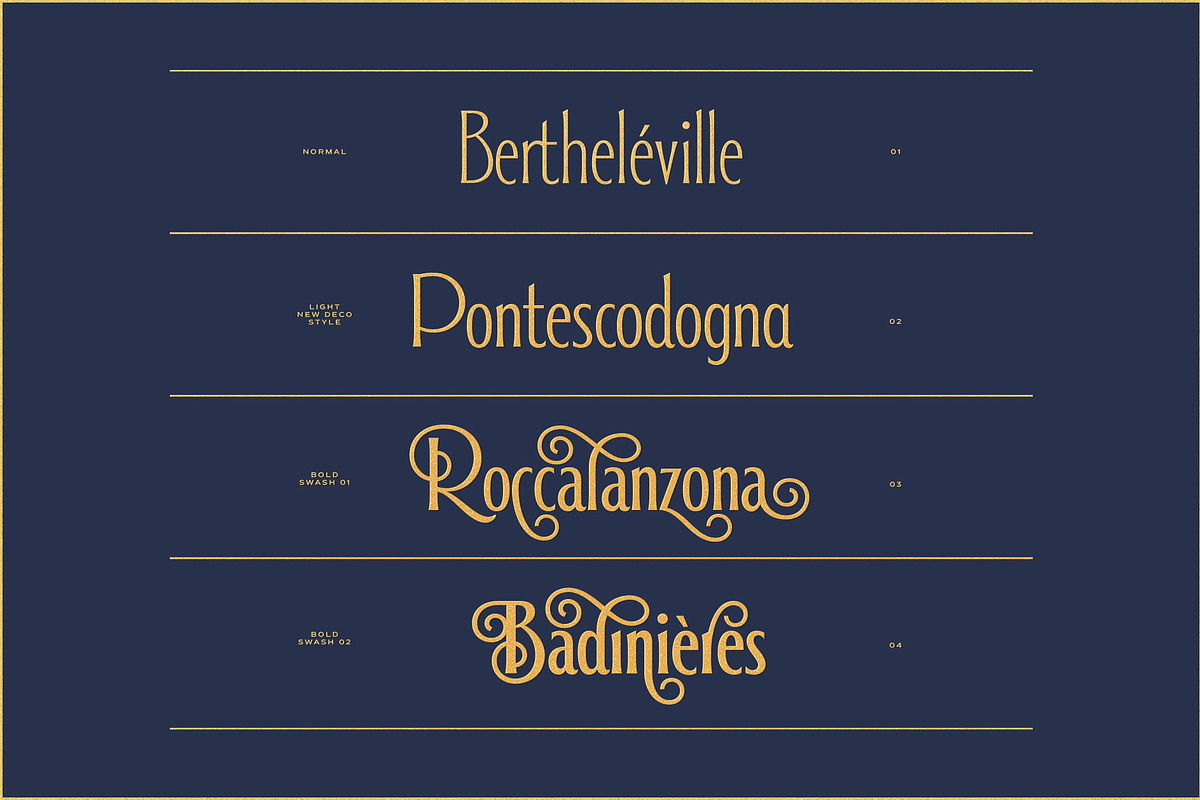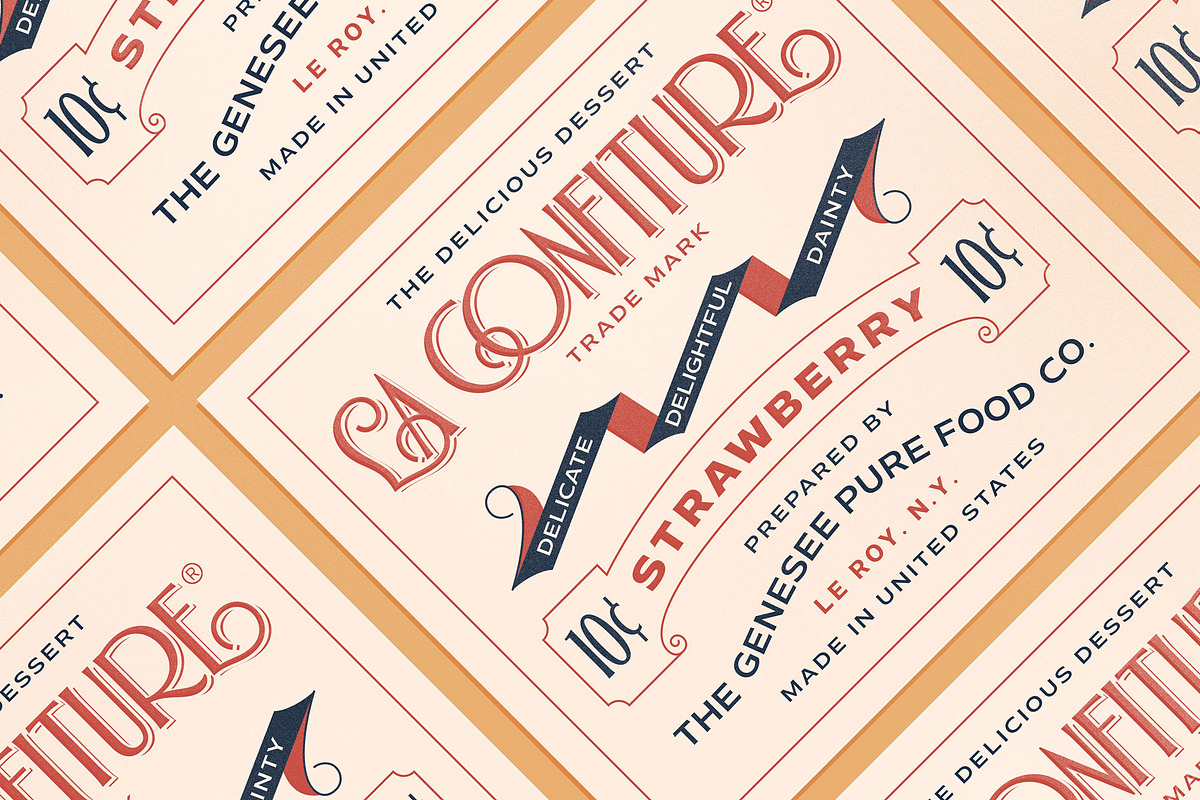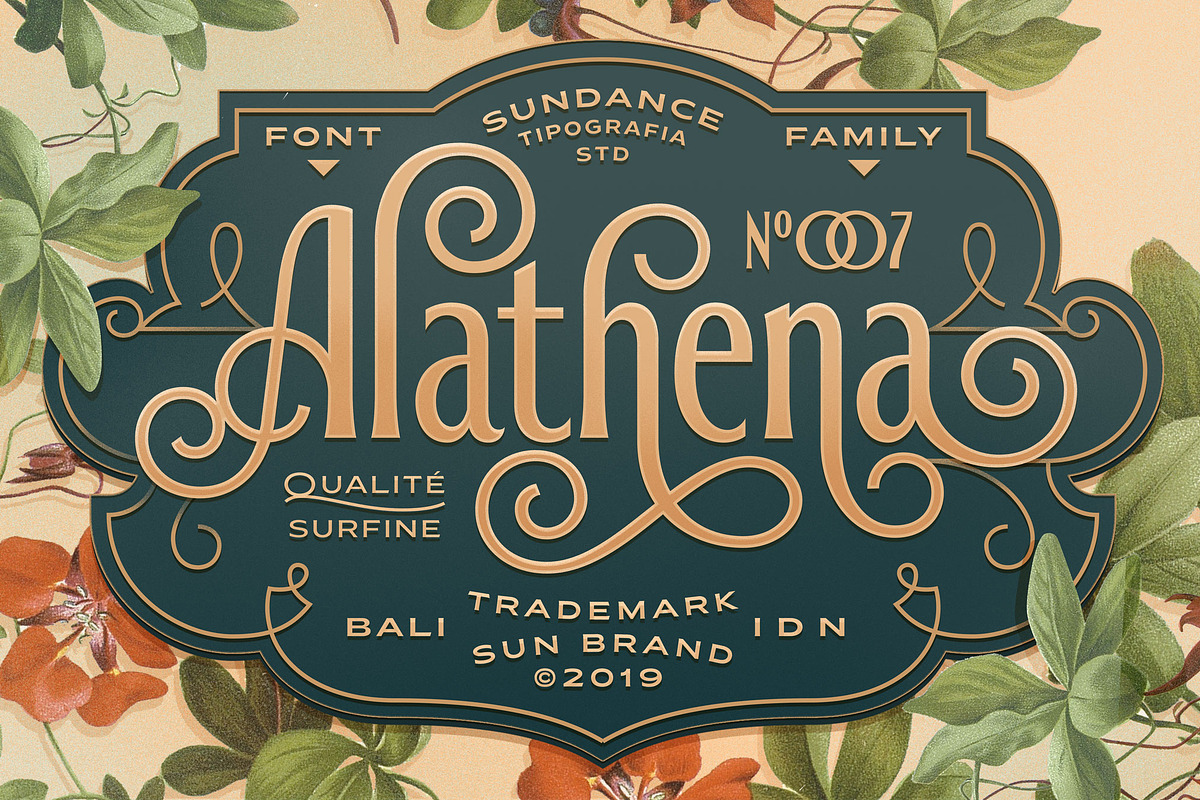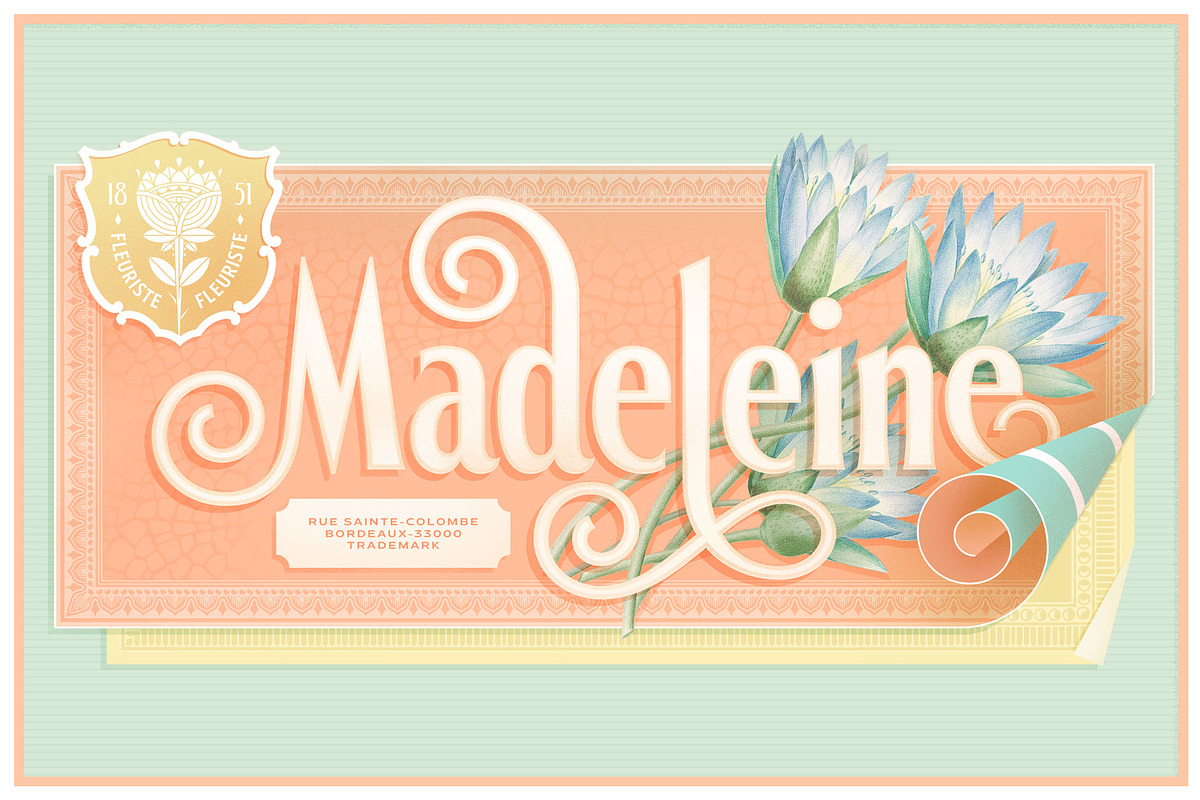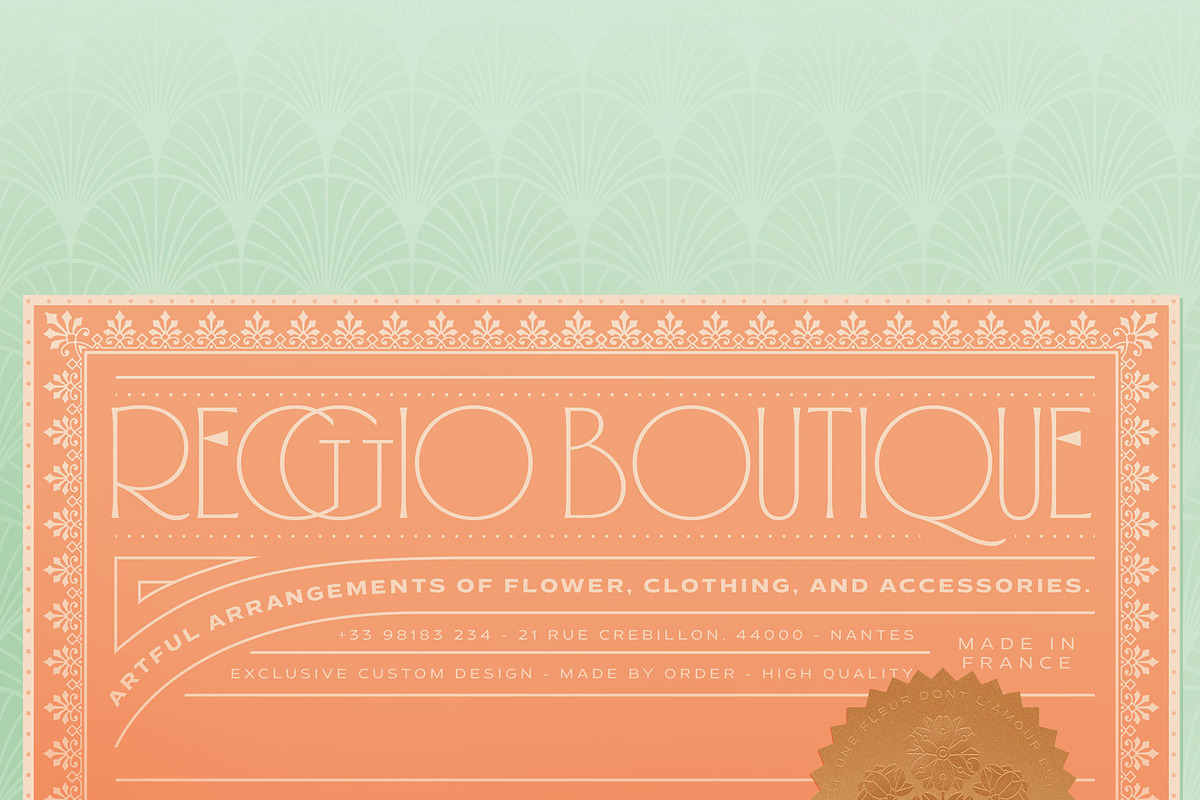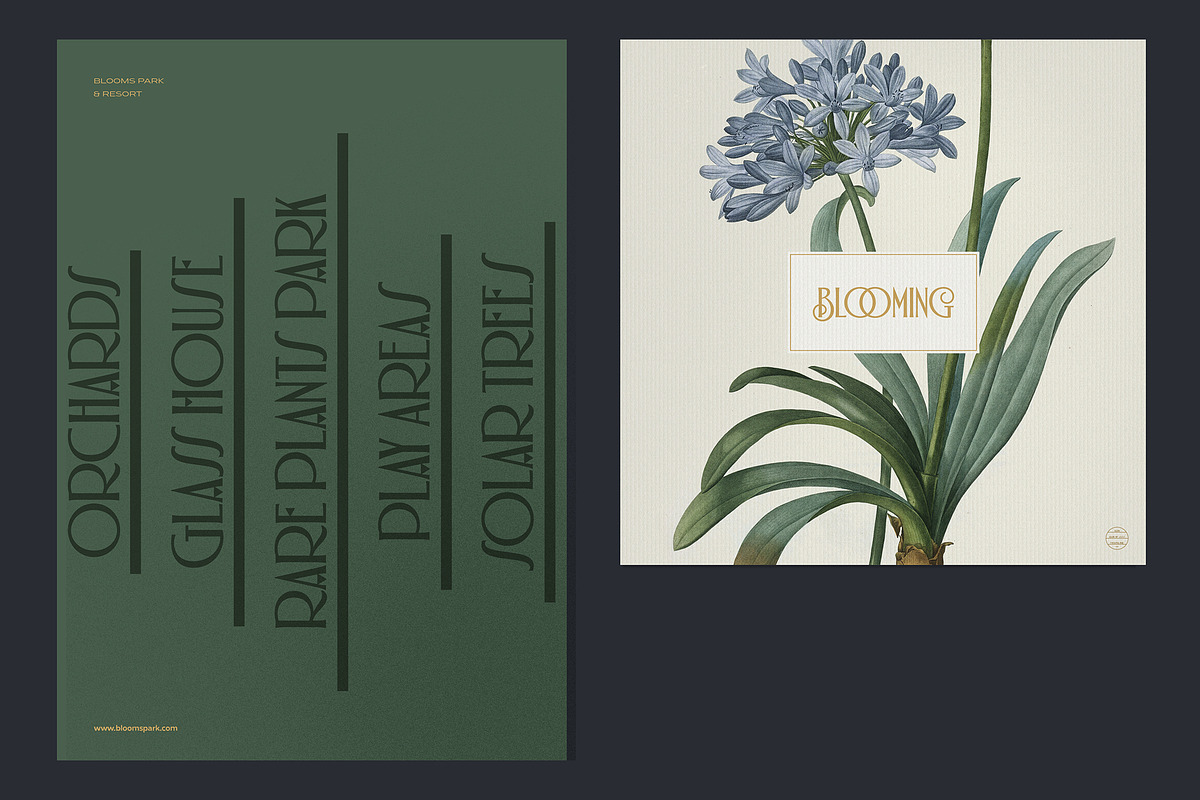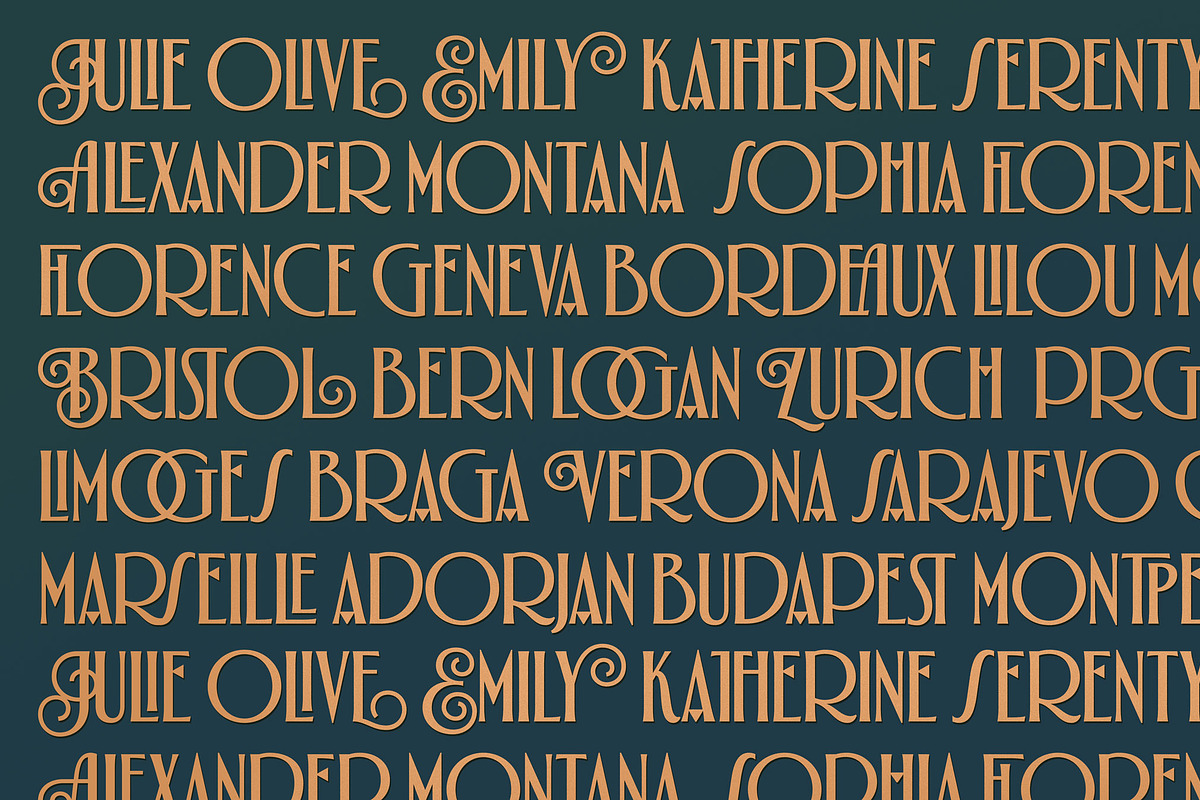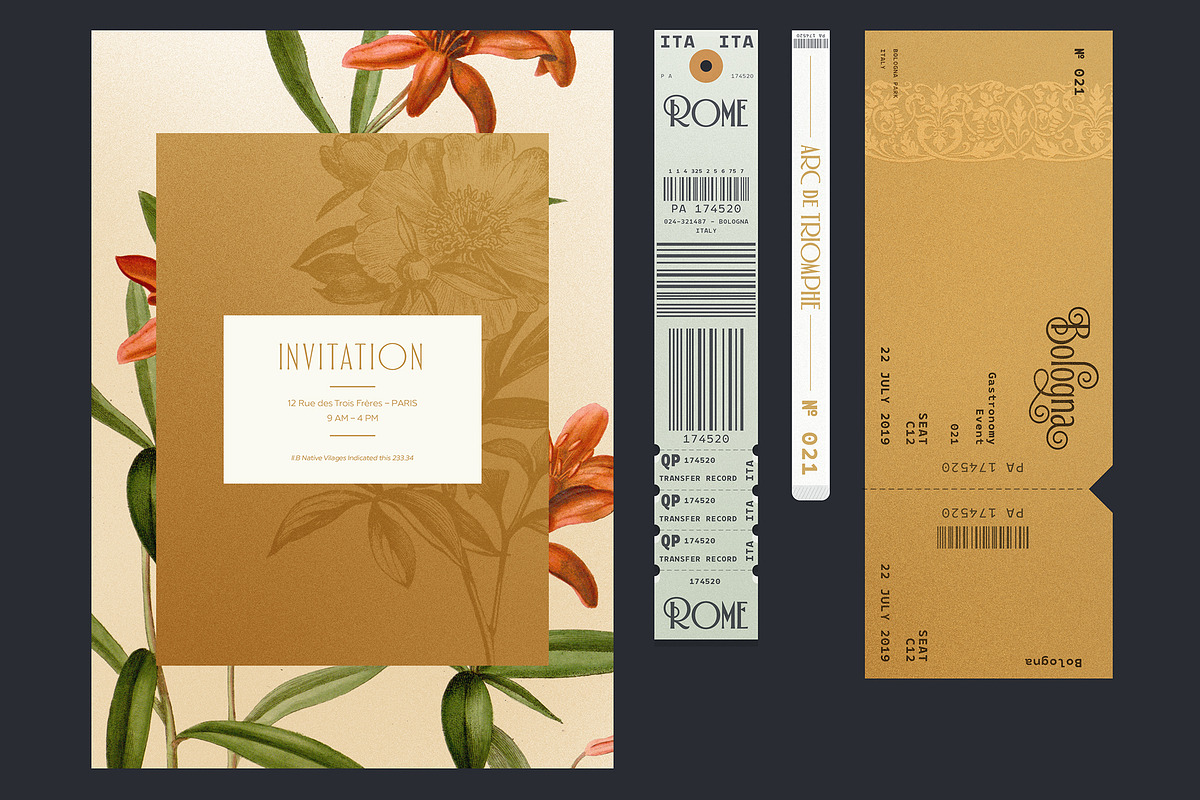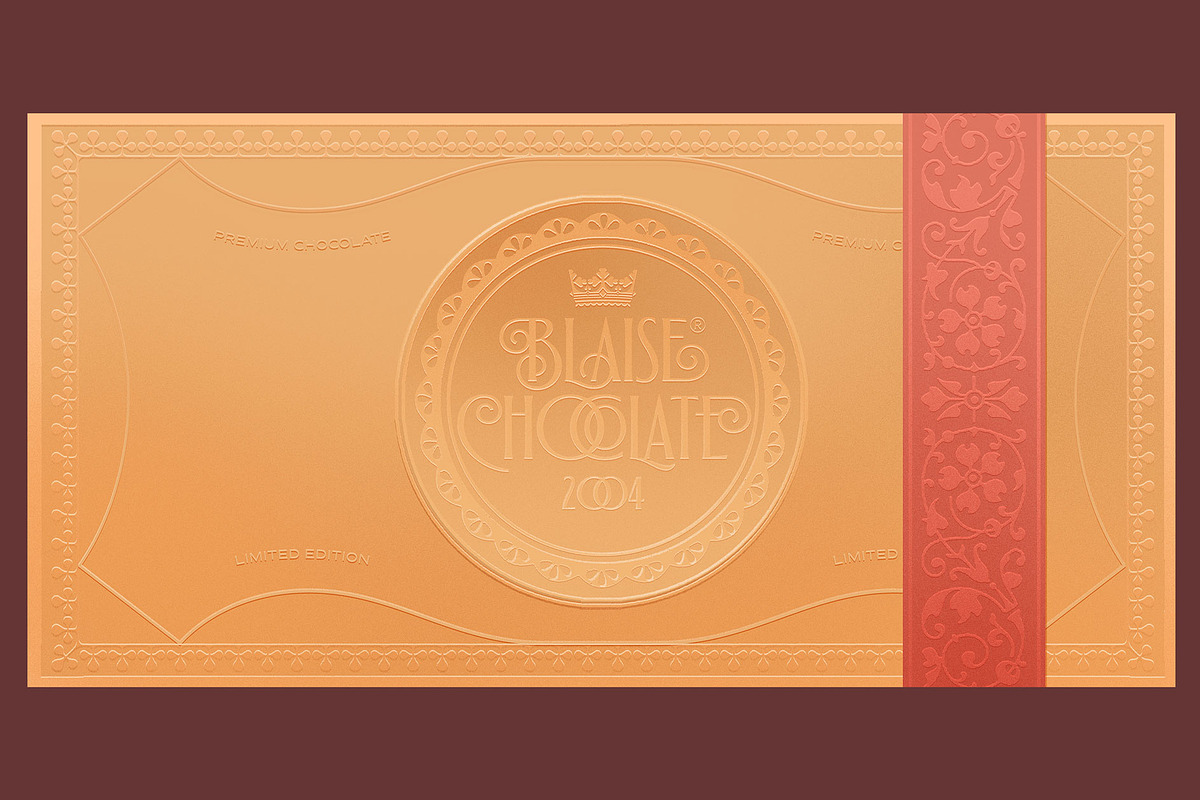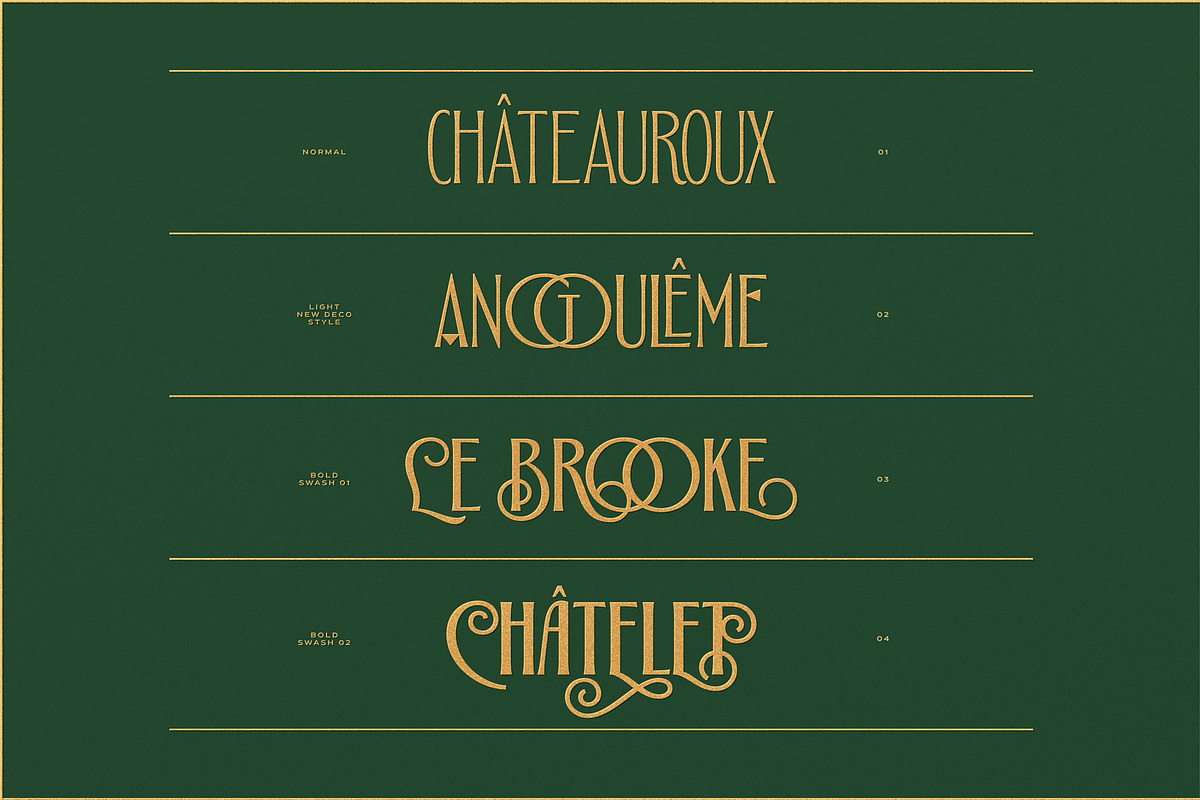
Alathena Font Family
Alathena Font Family was inspired by the france art decade between art nouveau to art deco, comes with 2 style, Alternative swash and Modern deco, with some modified ligatures. Available with 6 Weights, Thin, Extra Light, Light, Regular, Bold, Extra Bold with support 75+ language (Latin Pro).
Available in Opent Type Features
- Matching small caps for all weights.
- Old Style Figure.
- Full "f" Ligature set.
- 20+ Optional (discretionary) ligatures.
- Over 400+ Swash Characters.
- Automatic Fractions.
- Automatic Ordinals.
- Extended language support for most Latin-based Western and Central European languages, including all the swash and alternate characters.